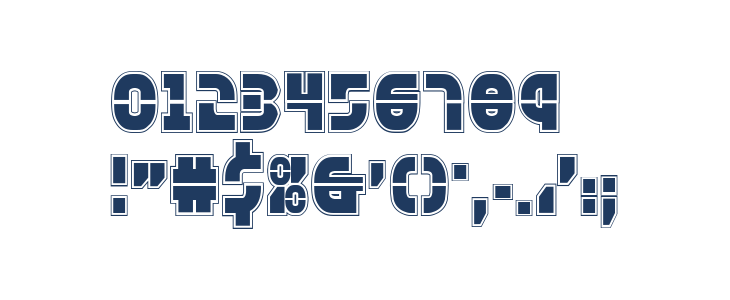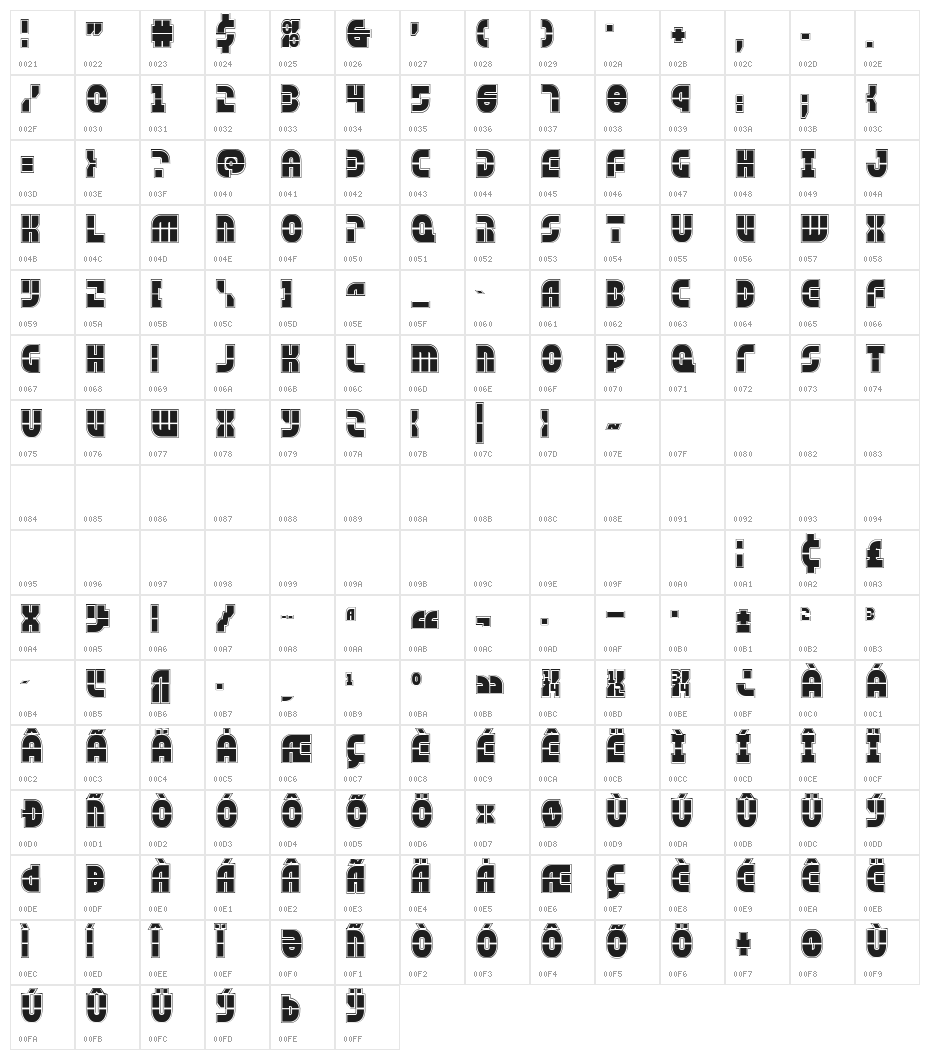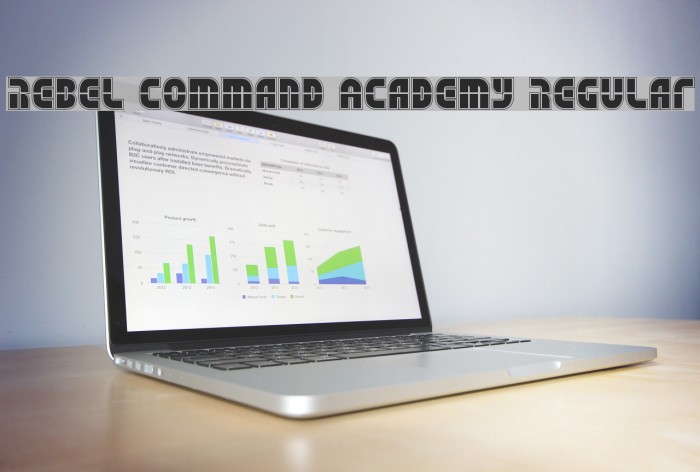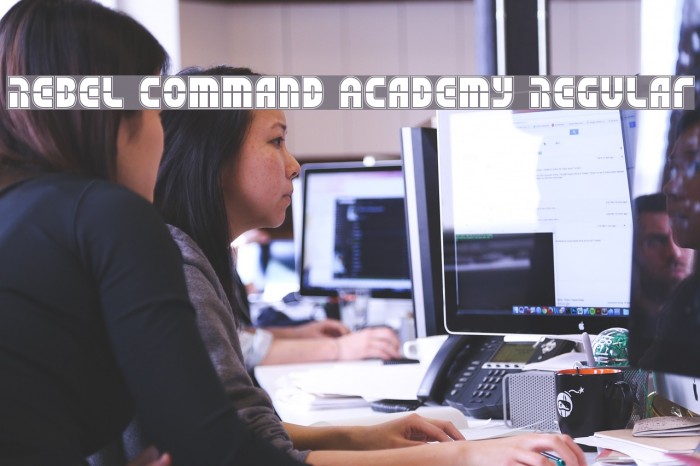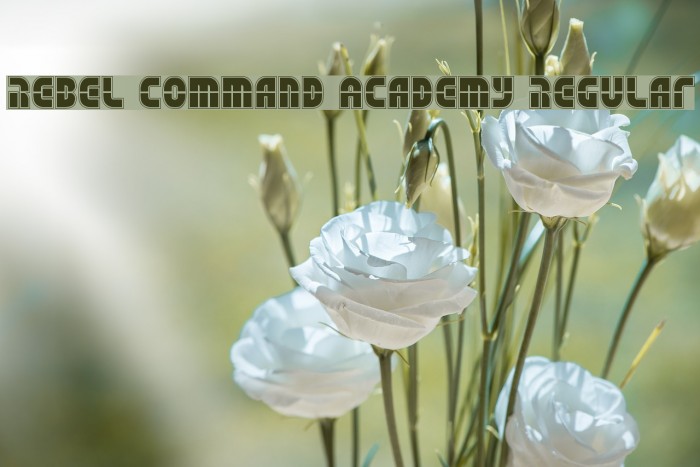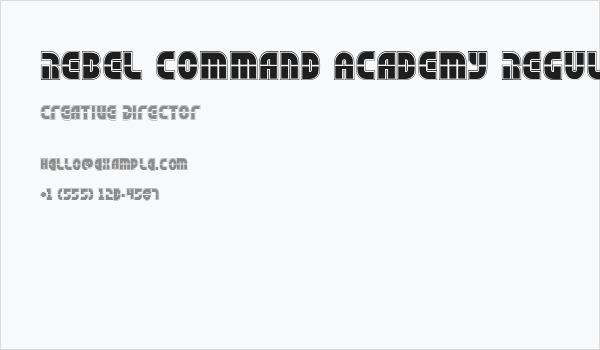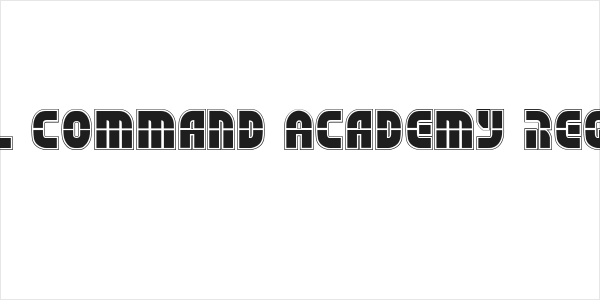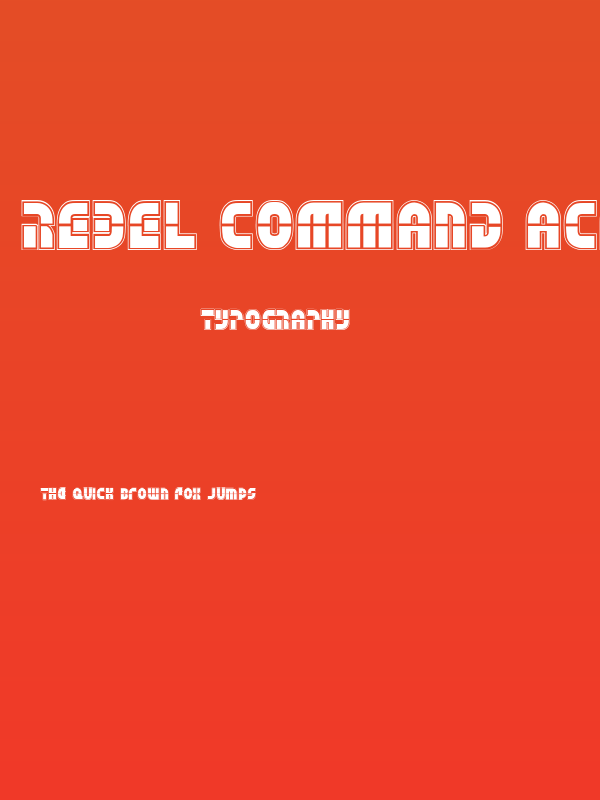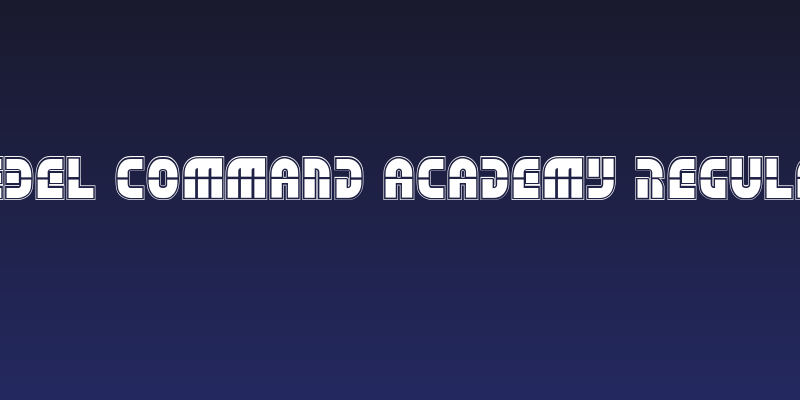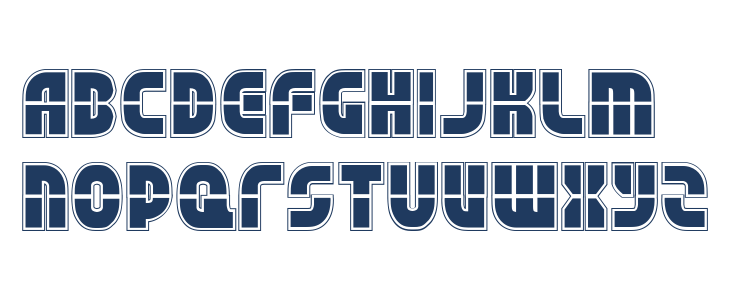
Rebel Command Academy Regular Font
✎ Futuristic
Rebel Command Academy Regular Description
This font features a bold, futuristic design with a strong geometric structure. The characters are constructed with thick, block-like forms that create a sense of solidity and strength. Each letter is outlined, adding a layered effect that enhances its visual impact. The font's style is reminiscent of sci-fi and tech-inspired aesthetics, making it ideal for projects that require a modern and edgy look. The uniformity in the design ensures consistency across all characters, while the unique shapes of certain letters add a distinctive flair. This font is perfect for capturing attention and conveying a sense of innovation and forward-thinking.
| Proposed Projects | Ideal for sci-fi themed posters, tech branding, video game titles, and futuristic event flyers. |